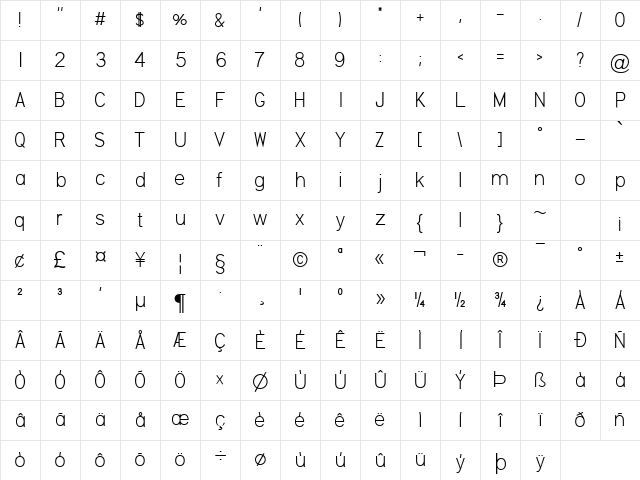
Intergraph ANSI Regular Free Font
Intergraph ANSI Regular
Intergraph ANSI Family
Design Context for Intergraph ANSI
Intergraph ANSI is a composed and adaptable typeface that performs quietly and consistently across a wide range of design contexts.
Pro Tip: Use Intergraph ANSI in both headline and body roles to test its range before committing to a single application.